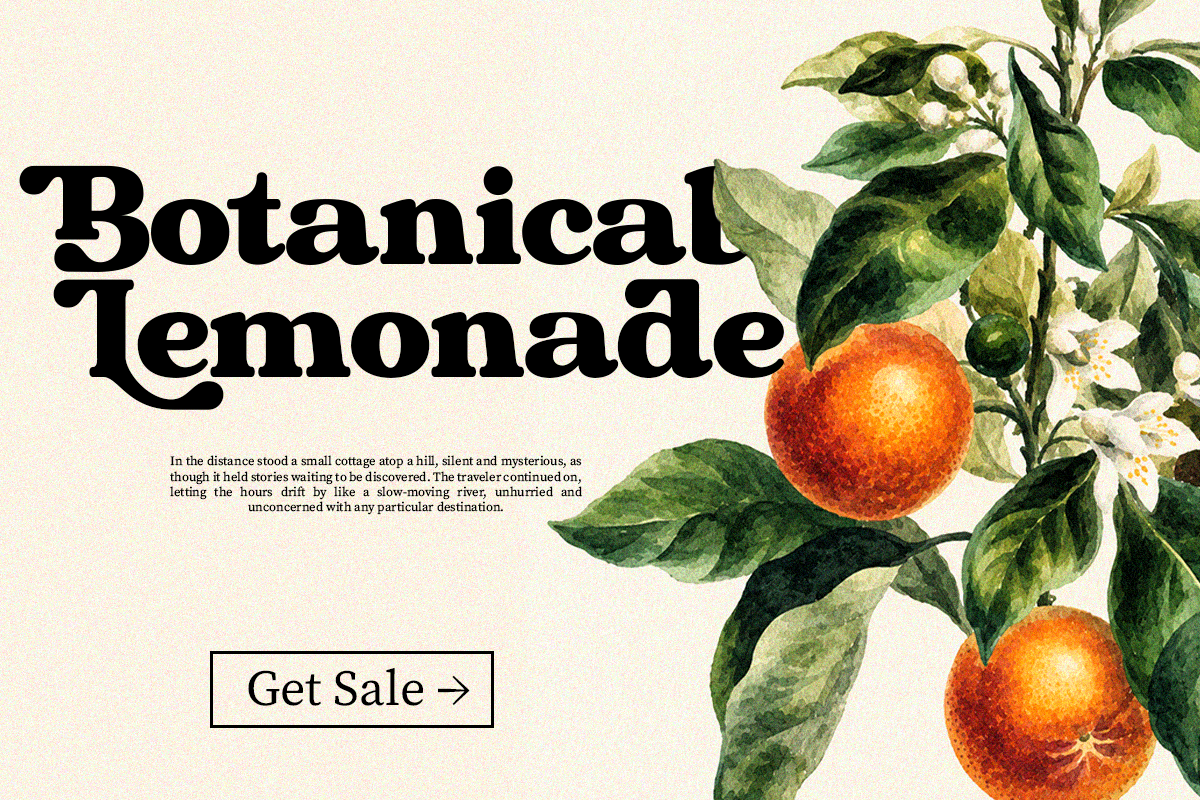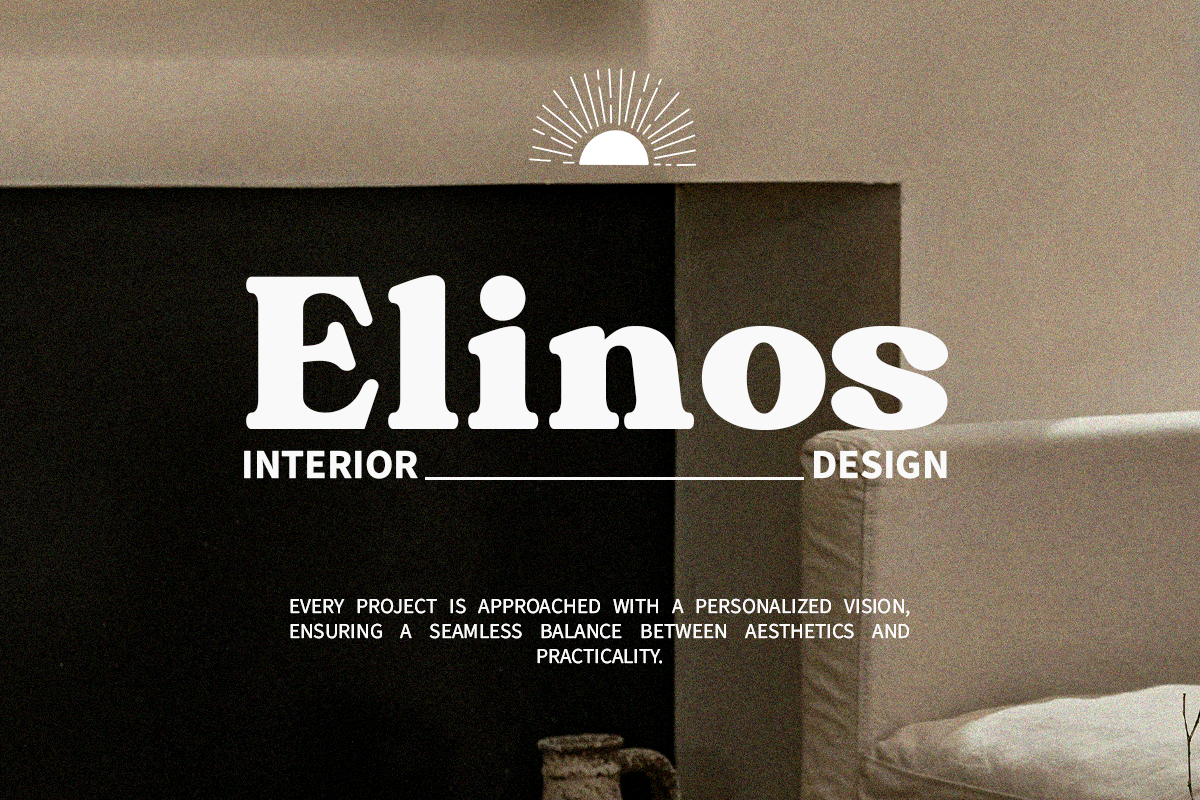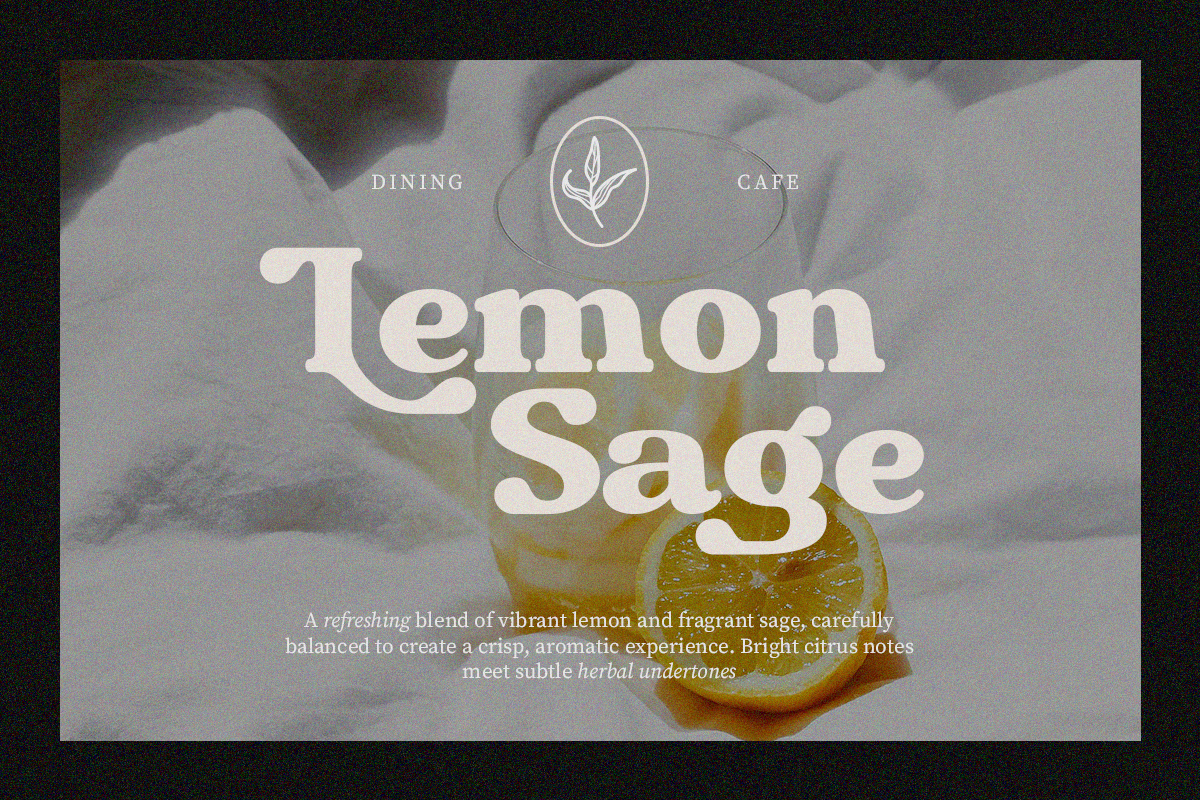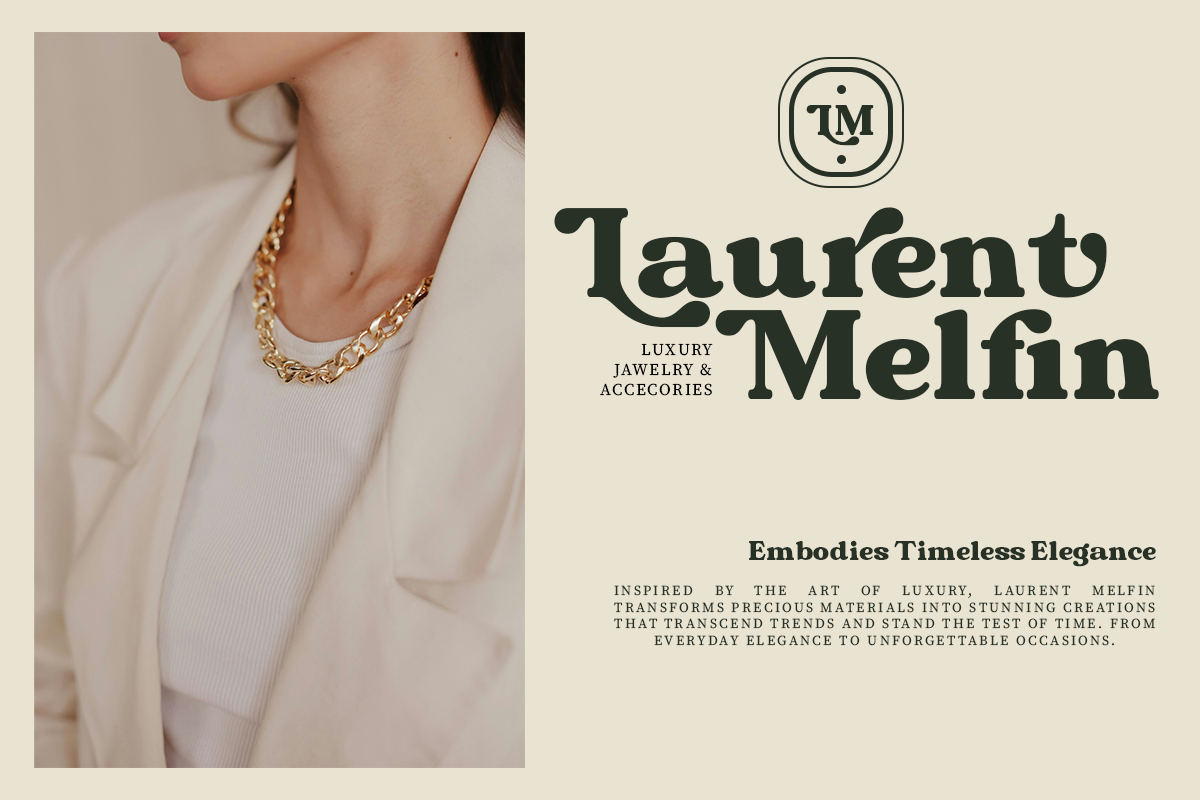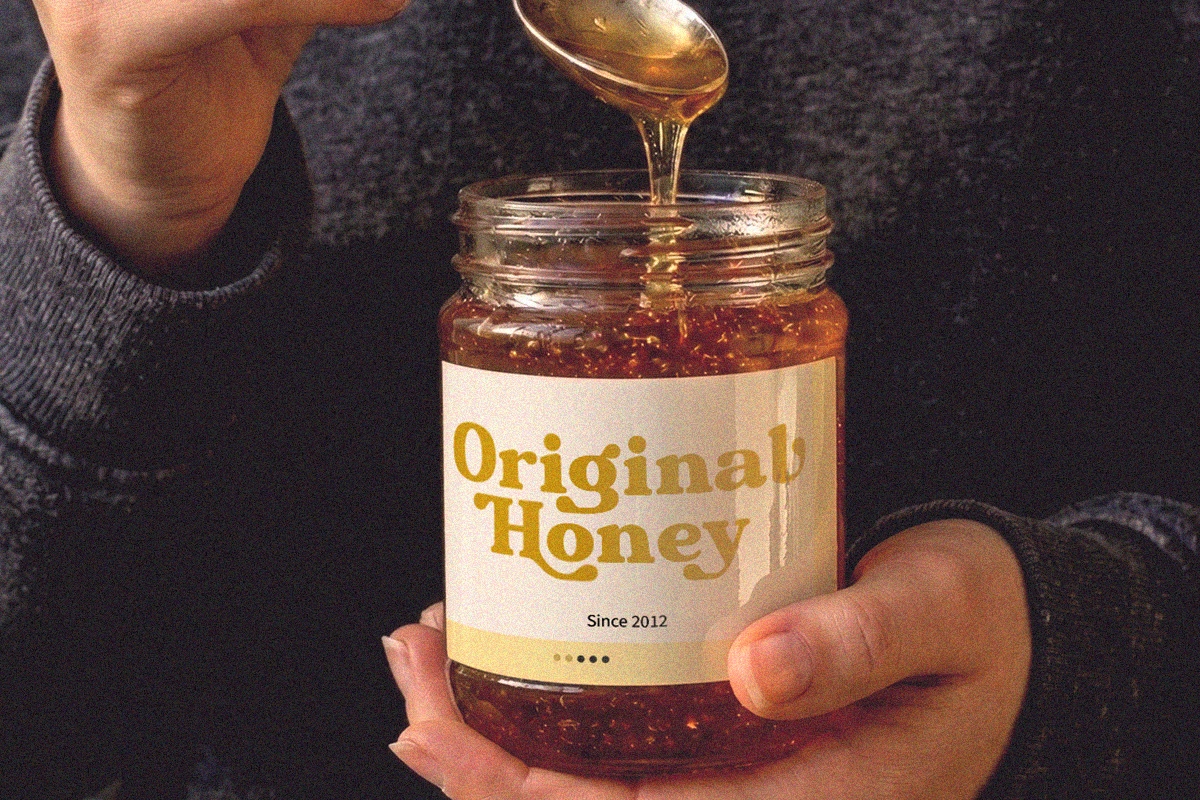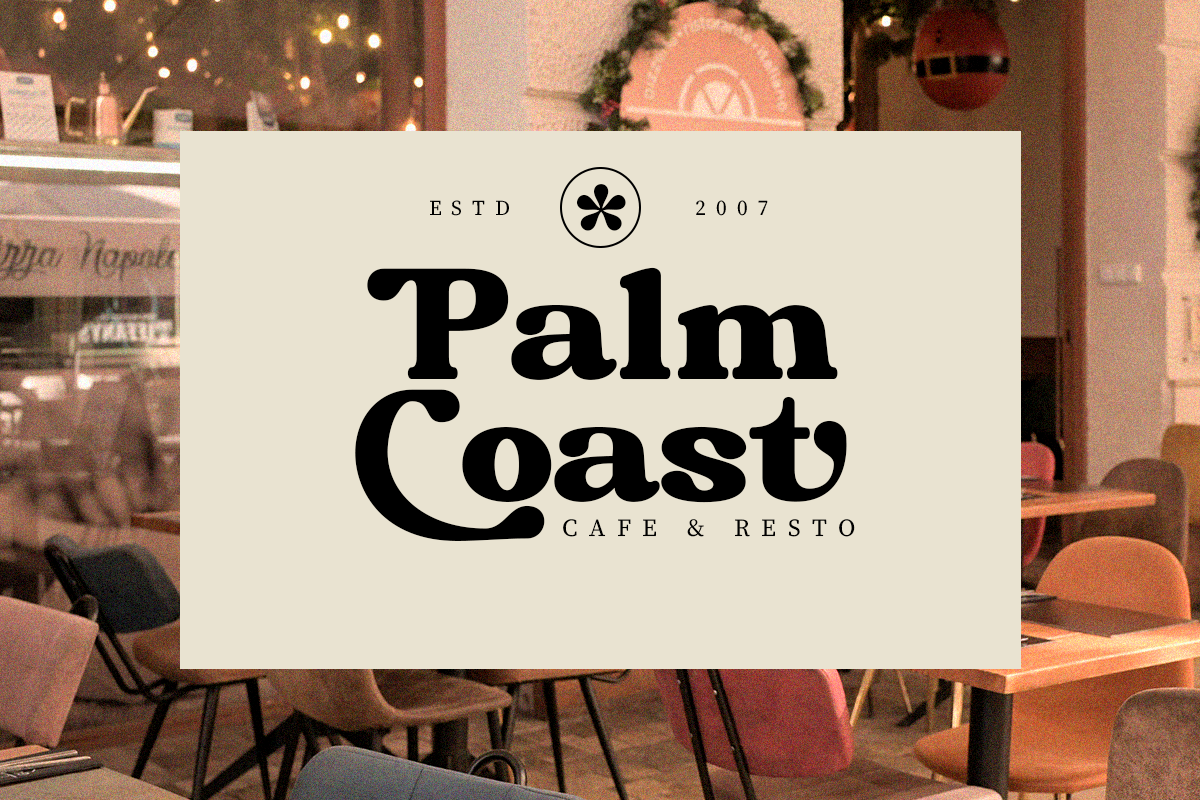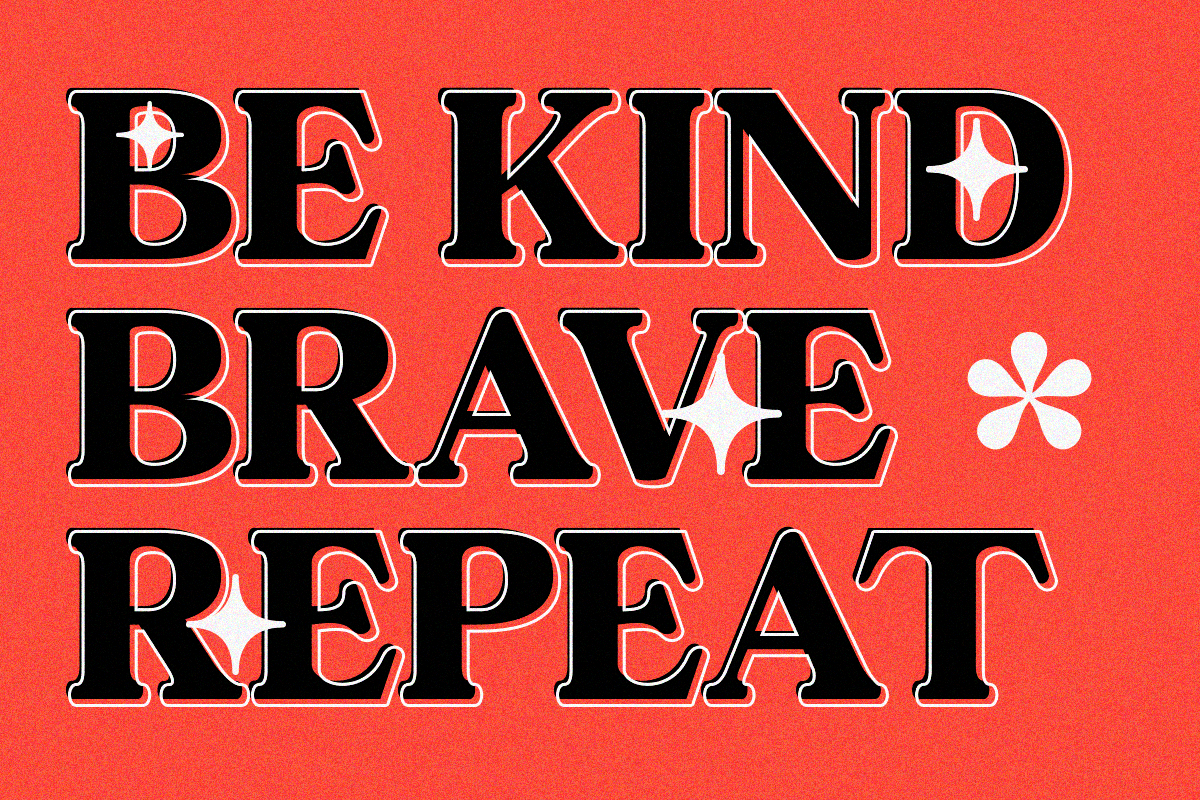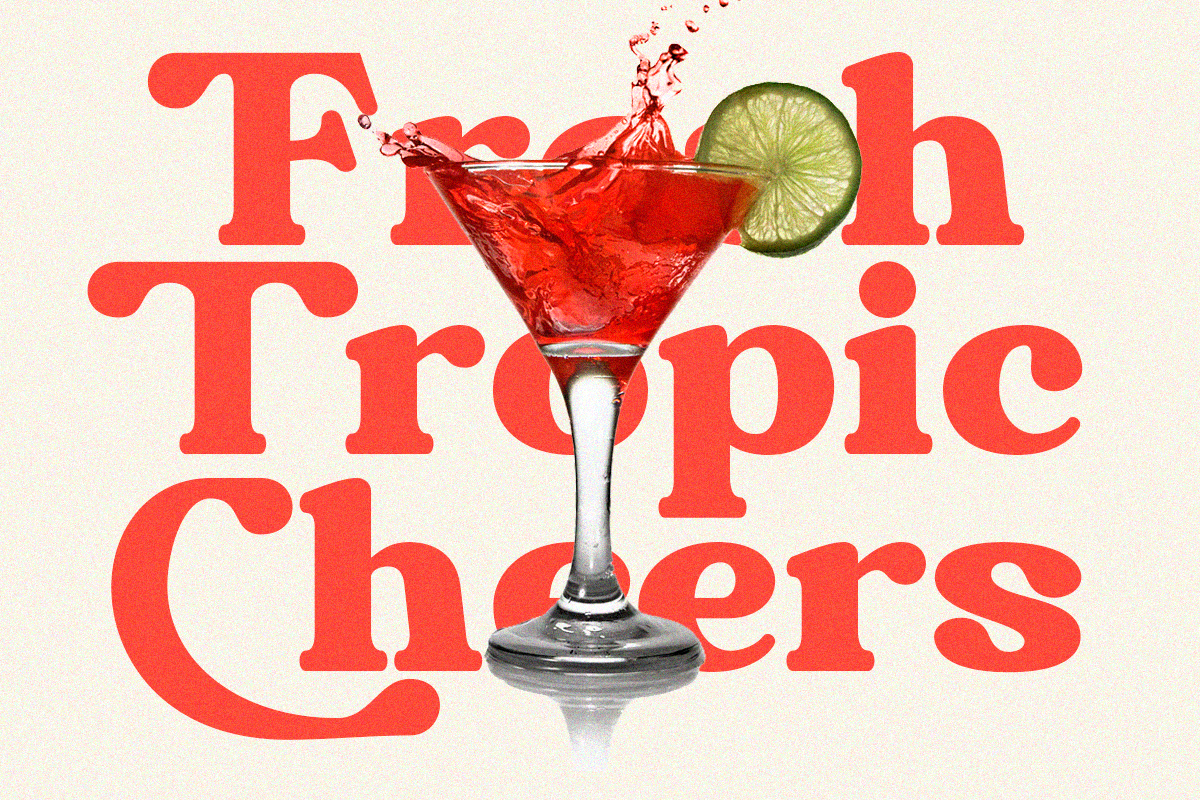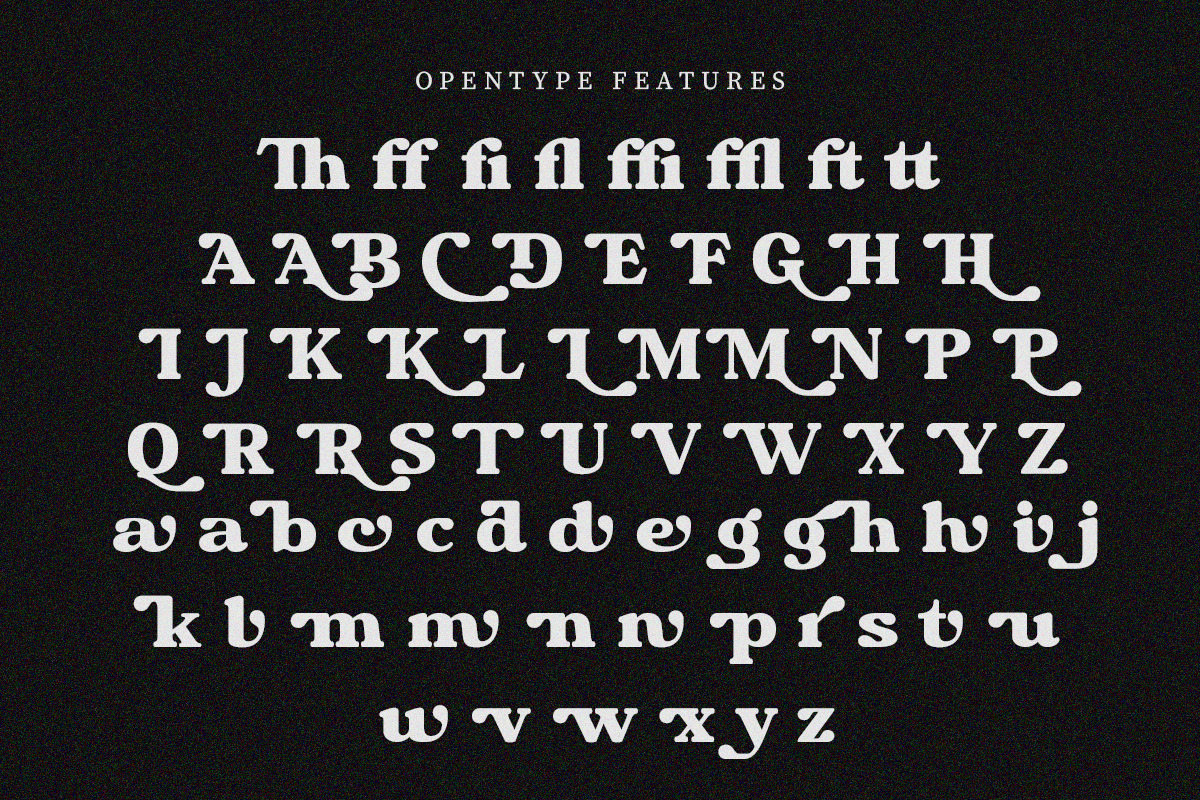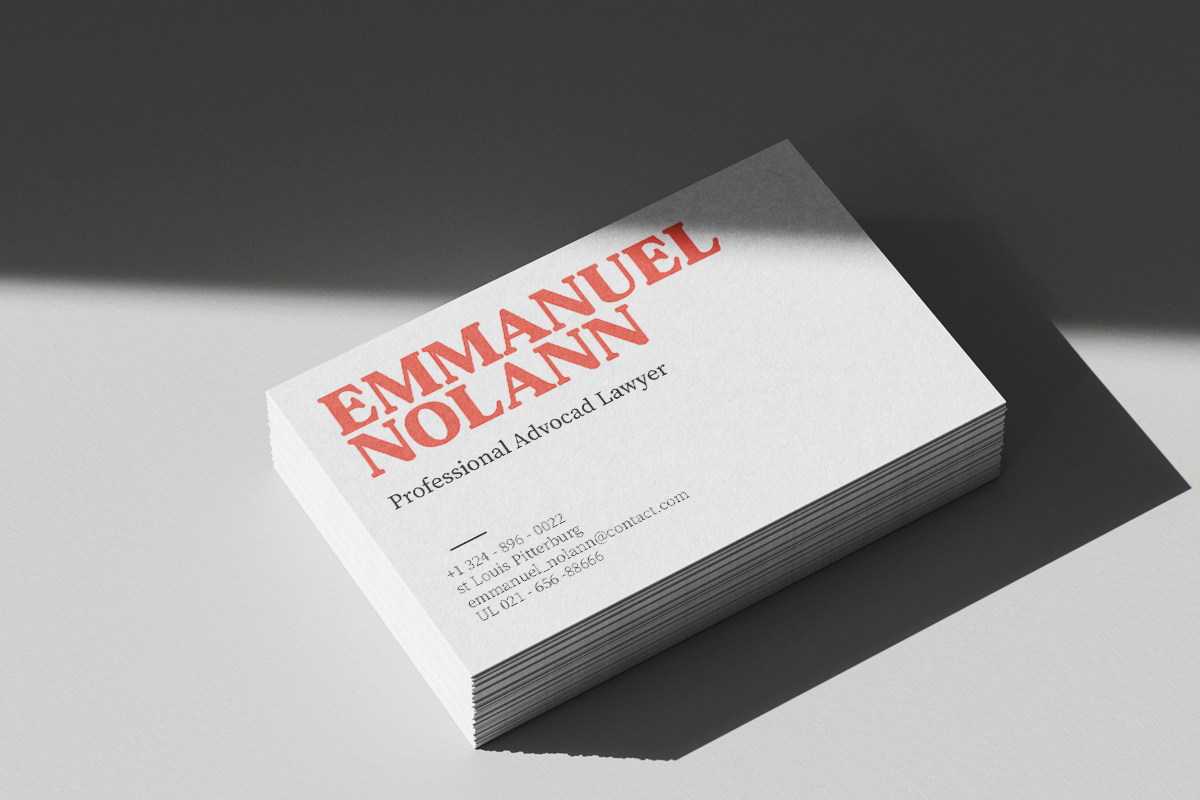
Chigora Dispaly
Chigora Display is a bold, expressive serif typeface with a distinctive vintage character. Its high-contrast strokes, rounded serifs, dramatic curves, and soft organic forms create a luxurious yet playful visual personality. Designed to make a strong statement, it works especially well for editorial headlines, fashion branding, posters, packaging, logos, and sophisticated display typography.